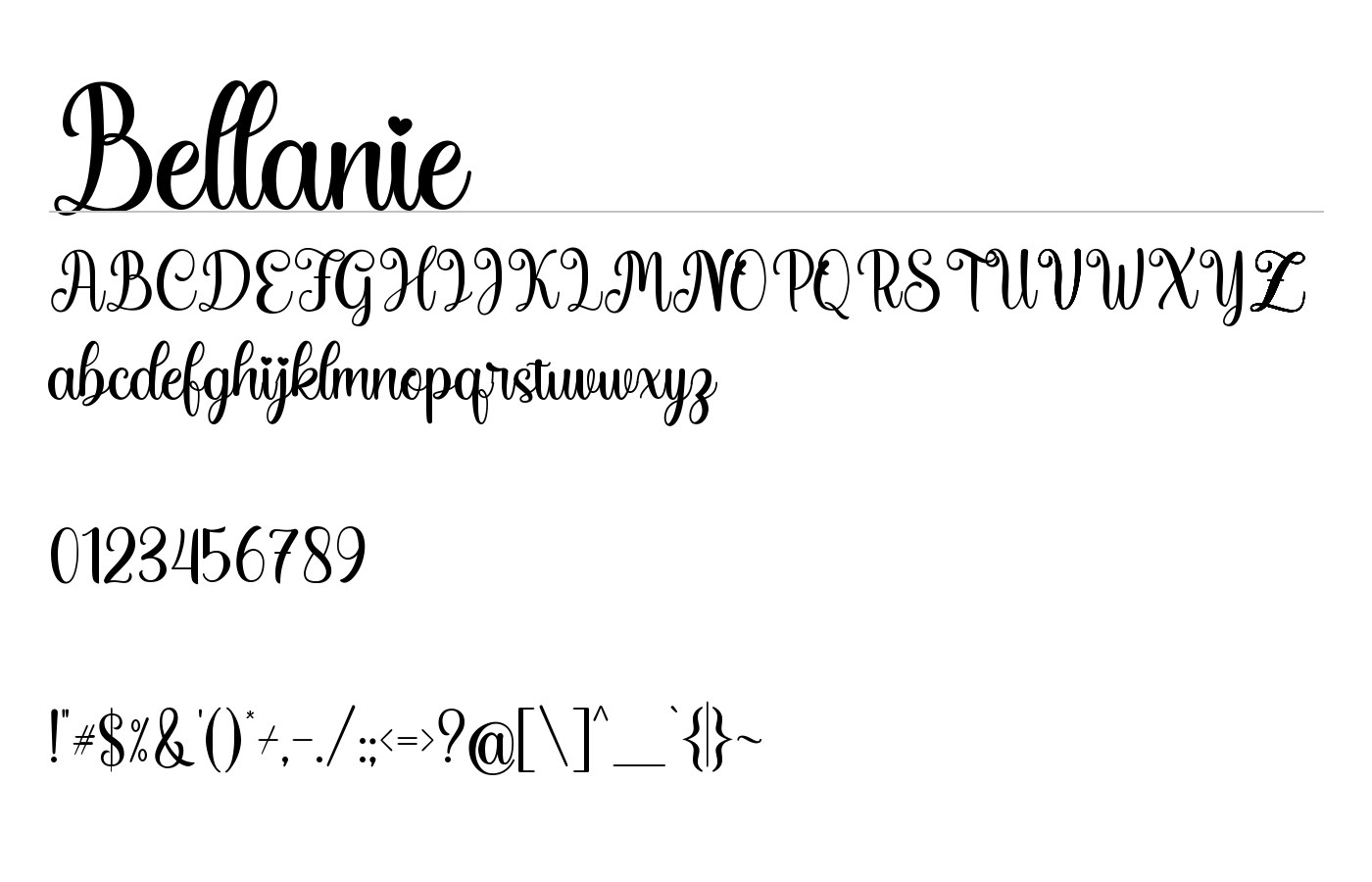
Bellanie is a playful script font with elegant, flowing letterforms that feature whimsical curls and heart-shaped dots, adding a charming, decorative touch. Its medium weight and tall x-height create a balanced, readable design perfect for feminine branding, invitations, and creative headlines that need a cheerful yet sophisticated personality. This font works best in projects that aim to convey warmth, romance, and friendliness with a unique, stylish flair.
Bellanie Font